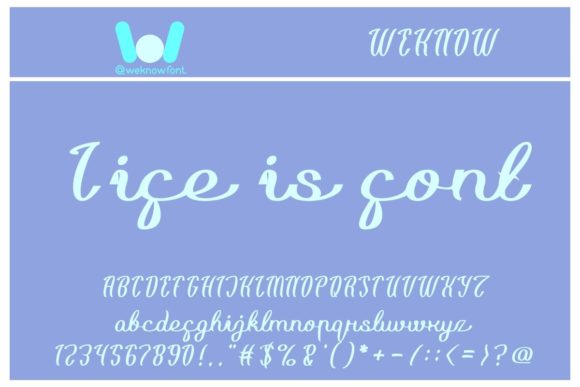
About Life is Font
Life is Good and cool and stylish handwritten font. It is suitable for logos, brand identity, apparel industry, poster, music, movie, game, magazine, book, comic, cartoon, YouTube, Instagram, website, or any of your creative design projects.